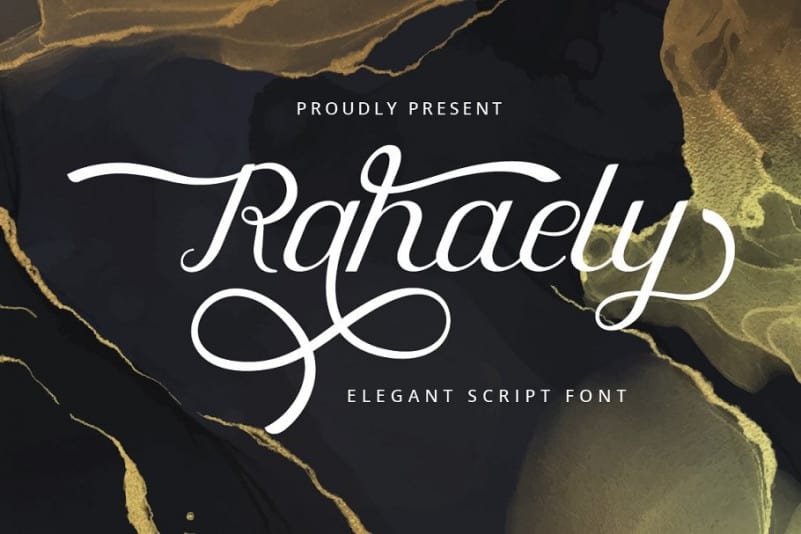
Rahaely Calligraphy Font
Rahaely Calligraphy Font has many swash character that functions as a connector with the next letter, perfect for crafters and invitations will make your design has a beautiful natural touch for each details. It’s designed and shared by PutraCetol Studio. This typeface is a elegant script font with a lot of alternates character. This font is perfect for logotype creation, lettering compositions, wedding invitations, fashion projects, book design cover, magazines typography, cards, packagings, posters, branding and more.
Come with Opentype feature with a lot of alternates, its help you to make great lettering. This font is also support multi language.